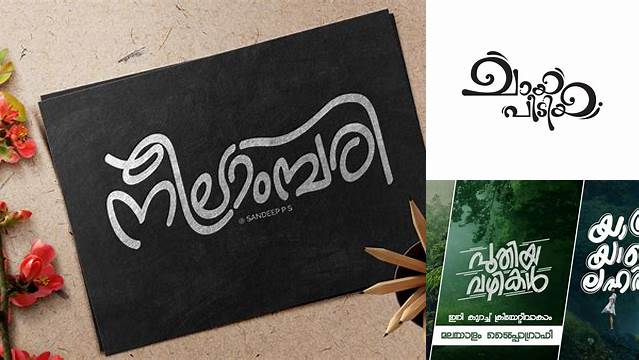
Free Malayalam Calligraphy Fonts For Pixellab: A Guide
What are Malayalam Calligraphy Fonts and Why Use Them?
So, what exactly are Malayalam calligraphy fonts? Think of them as the artistic expression of the Malayalam language. Instead of the standard, often simple, fonts you might be used to, calligraphy fonts are designed with a focus on aesthetics, flow, and visual appeal. Each character is crafted to look like it's been written with a brush or pen, giving your text a unique and stylish appearance. Using these fonts can instantly add a touch of sophistication and cultural richness to any design. Whether you're creating posters, social media graphics, logos, or even invitations, Malayalam calligraphy fonts can make your text pop and grab attention.
Why should you use them? Primarily, it's about making a statement. Standard fonts are fine, but they often lack the personality and charm that calligraphy fonts bring to the table. They can help you communicate your message more effectively, especially when you want to connect with an audience that appreciates the beauty of Malayalam script. Plus, it's a fantastic way to celebrate and showcase the rich cultural heritage of Kerala. By incorporating these fonts, you're not just designing; you're storytelling, adding layers of meaning and visual interest that can leave a lasting impression. It's all about making your work more visually appealing and engaging for your audience, giving it that extra edge to stand out from the crowd.
Benefits of Using Malayalam Calligraphy Fonts
The benefits are numerous, folks! First and foremost, they enhance the visual appeal of your designs. Calligraphy fonts are inherently more artistic and eye-catching than regular fonts. This means your text will be more likely to grab attention, drawing the viewer's eye and making your message more memorable. Secondly, they add a touch of elegance and sophistication. Calligraphy fonts have a certain grace and fluidity that immediately elevates the design, giving it a professional and polished look. They're perfect for projects where you want to convey a sense of tradition, artistry, or luxury.
Thirdly, they provide a unique cultural touch. By using Malayalam calligraphy fonts, you celebrate the beauty and heritage of the Malayalam language and culture. This can be particularly impactful if your target audience has roots in Kerala or appreciates the language. It shows that you value and respect their cultural identity, building a stronger connection with them. Fourthly, they offer versatility. Despite their artistic nature, Malayalam calligraphy fonts can be used in a wide range of design projects, from posters and logos to invitations and social media posts. They can be adapted to suit different styles and themes, making them a flexible tool for any designer.
Fifthly, they can help you stand out from the crowd. In a world flooded with visual content, it's crucial to find ways to make your designs unique and memorable. Using Malayalam calligraphy fonts can give you an edge, helping your work stand out and leave a lasting impression. Lastly, they are a great way to experiment and have fun! Playing with different fonts and styles is a great way to learn and grow as a designer. It allows you to explore new creative avenues and discover the power of typography to communicate your ideas effectively.
- DaFont: DaFont is a popular website that hosts a massive library of fonts, including a section dedicated to foreign language fonts. You can browse through various Malayalam fonts and download them for free. Remember to check the license before using them for commercial projects.
- Font Squirrel: Font Squirrel is another great resource for free fonts. They have a curated selection of high-quality fonts, and you might find some beautiful Malayalam calligraphy fonts there. Their website is user-friendly and easy to navigate.
- Behance and Dribbble: Both Behance and Dribbble are platforms where designers showcase their work. While you might not always find direct download links, many designers offer their fonts for free download or provide links to where you can download them. Keep an eye out for Malayalam font projects and follow the designers who create them.
- Local Design Communities: Search for local design communities or forums that focus on Kerala or Malayalam design. Members often share resources, including free fonts. These can be goldmines for discovering unique and authentic fonts.
When searching for fonts, make sure to pay attention to the license. Some fonts are free for personal use but require a license for commercial projects. Always read the terms and conditions carefully to avoid any copyright issues. Checking the design and quality of the fonts, checking the character set is also essential. Ensure that the font includes all the necessary Malayalam characters you need. And, of course, have fun exploring and finding the perfect fonts for your designs!